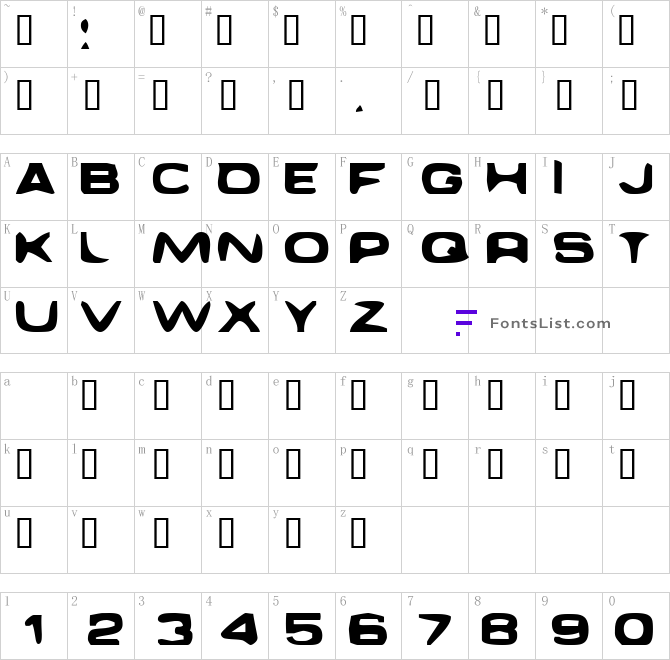
- Font Name:Daggmask
Daggmask-Normal.ttf is a very beautiful artistic font, Daggmask-Normal.ttf is widely used in the design and printing of various books and pictures,Daggmask-Normal.ttf has a strong visual impact,Daggmask-Normal.ttf is a commonly used font in newspapers, magazines and books, and is used in posters, e-commerce Poster design, store design, logo design, font design and other fields.Daggmask-Normal.